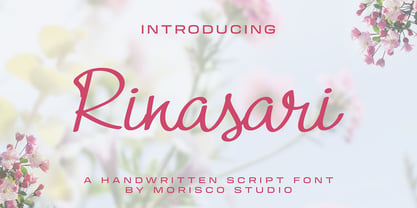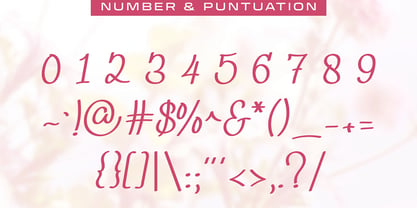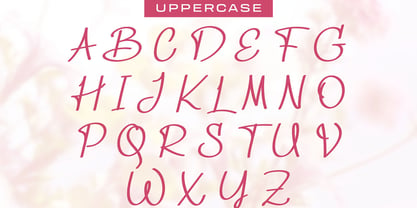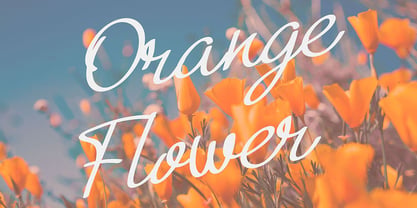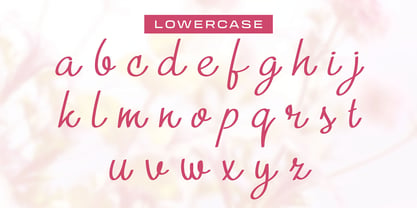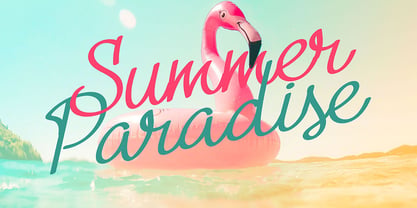
Rinasari
von Morisco Studio
Die Schriftfamilie Rinasari wurde von Fathur Rahman entworfen und von Morisco Studio veröffentlicht. Rinasari enthält 1 Stile. Mehr über diese Familie
Rinasari is a Handwritten Script typeface with a unique character designed by Morisco Studio. This typeface is well-suited for headlines and any project, like branding, print templates, logos, and more.
Features:
* Uppercase & Lowercase
* Symbols & Punctuation
Designer: Fathur Rahman
Foundry: Morisco Studio